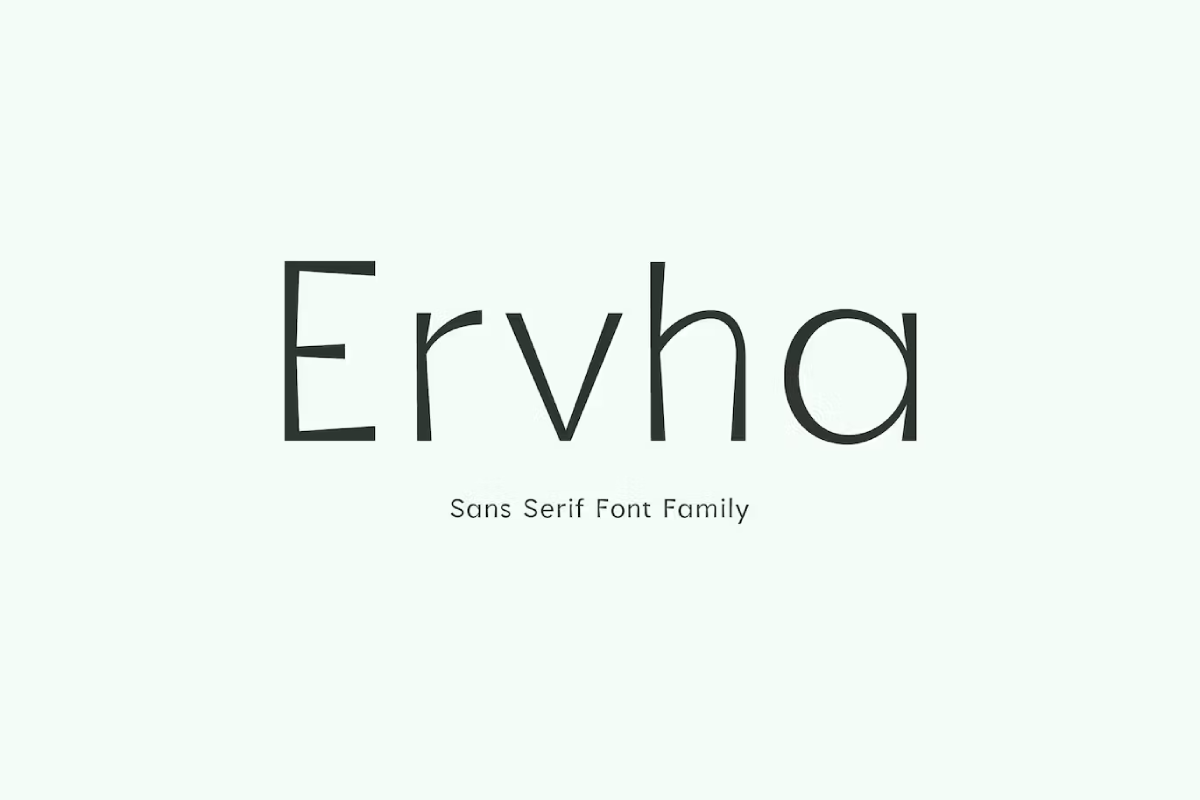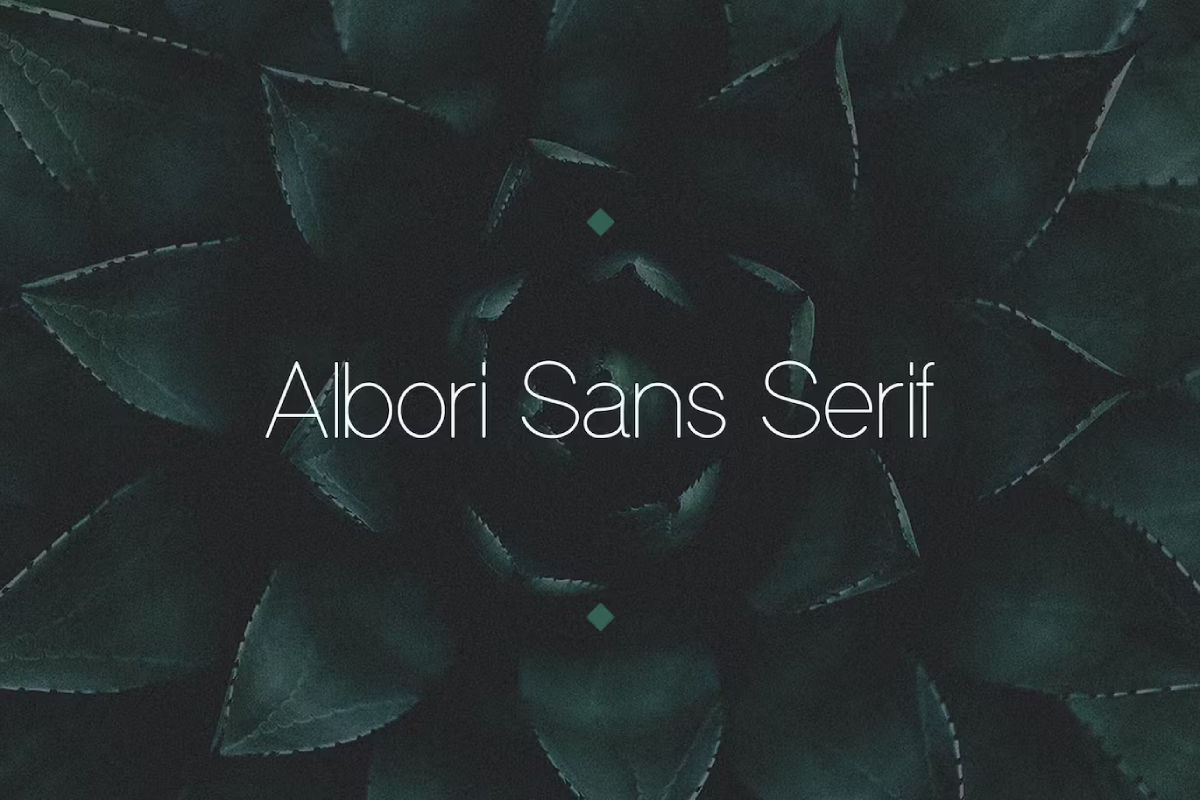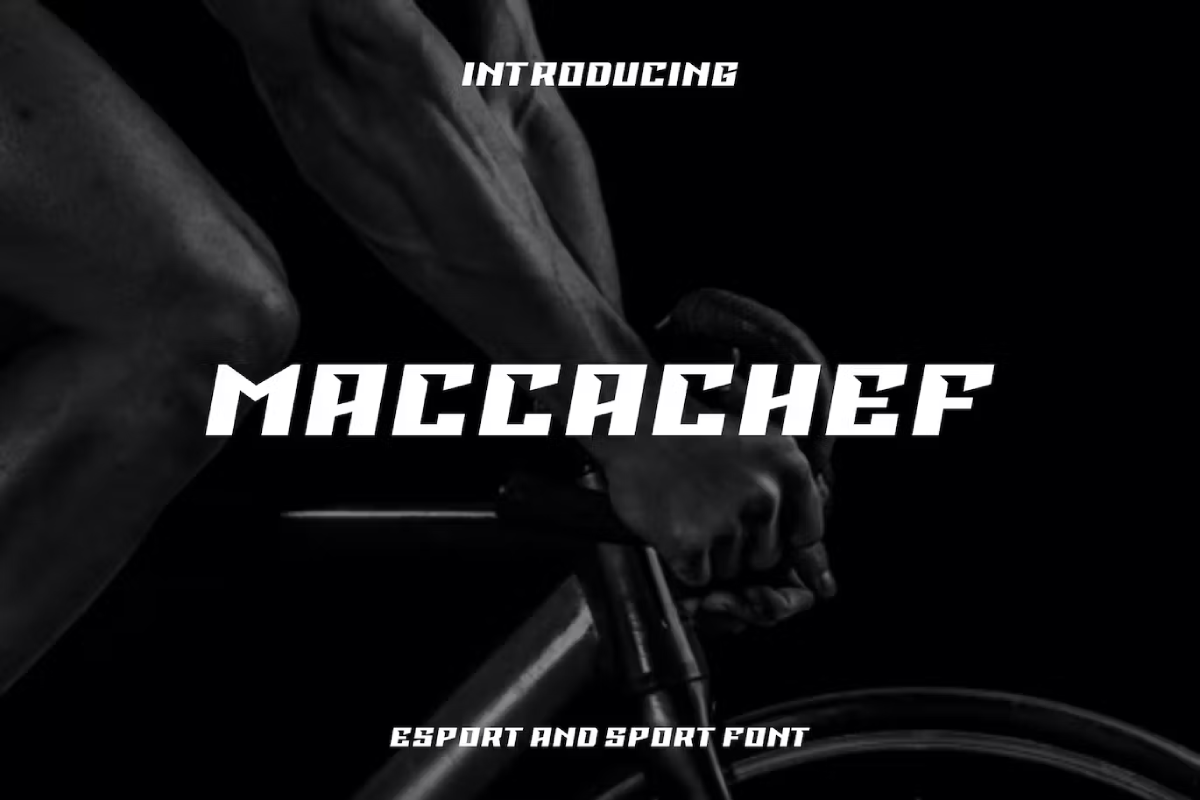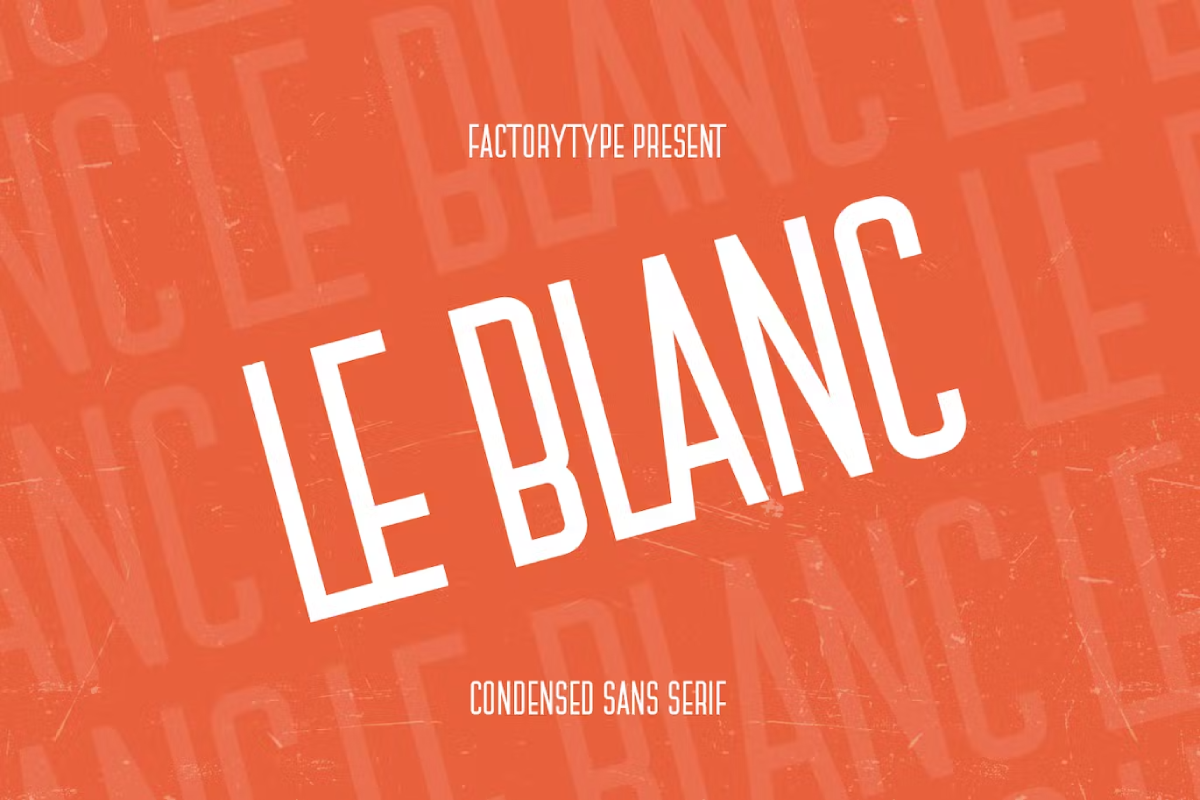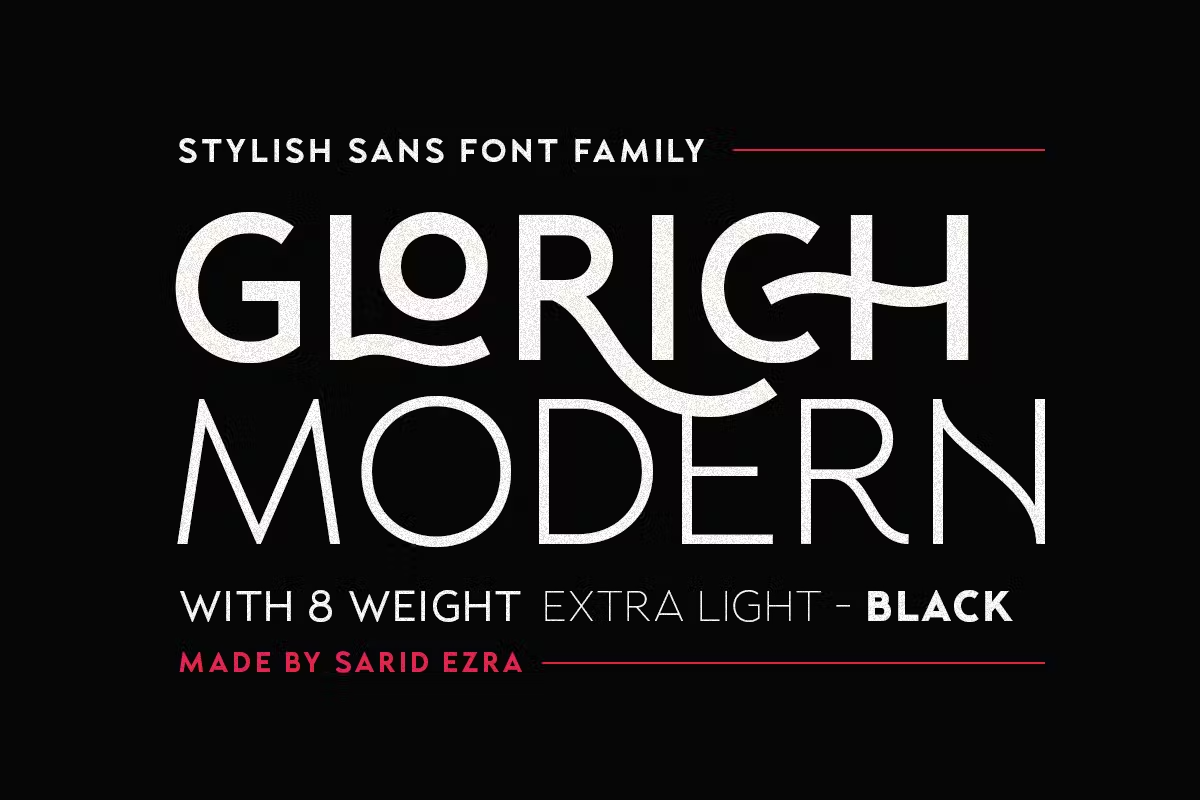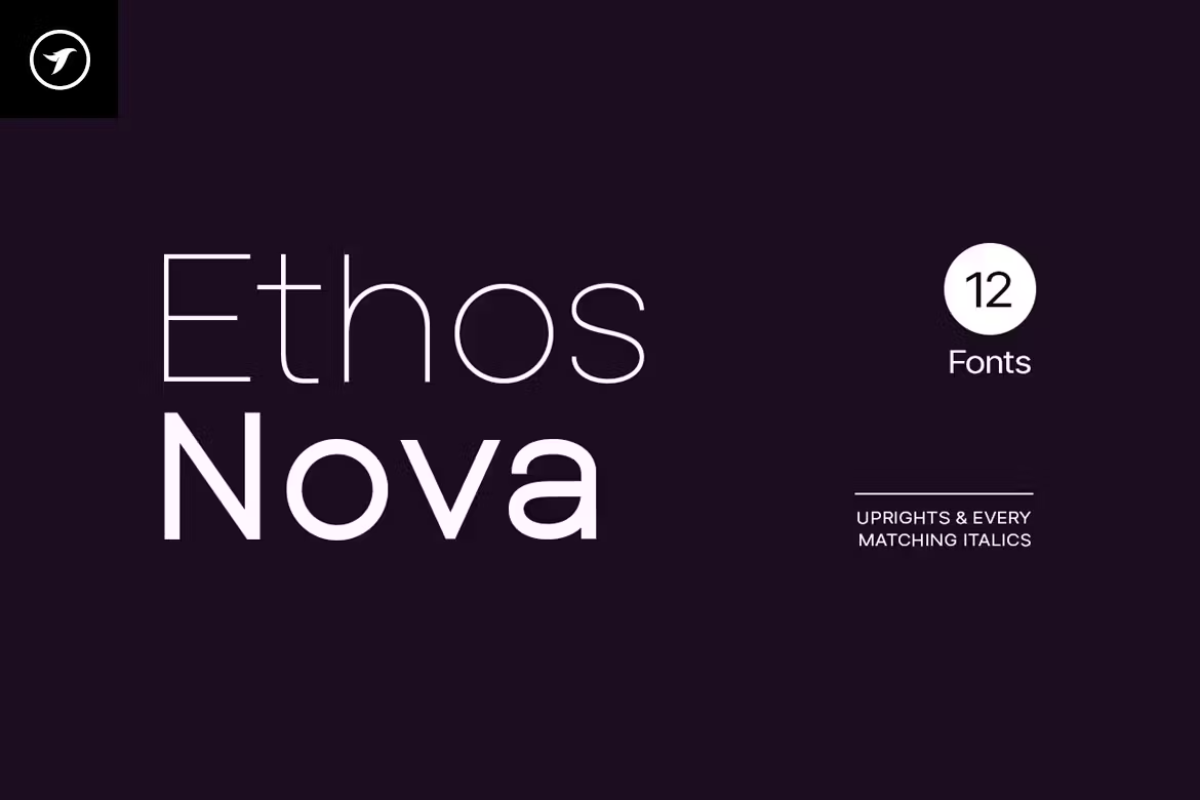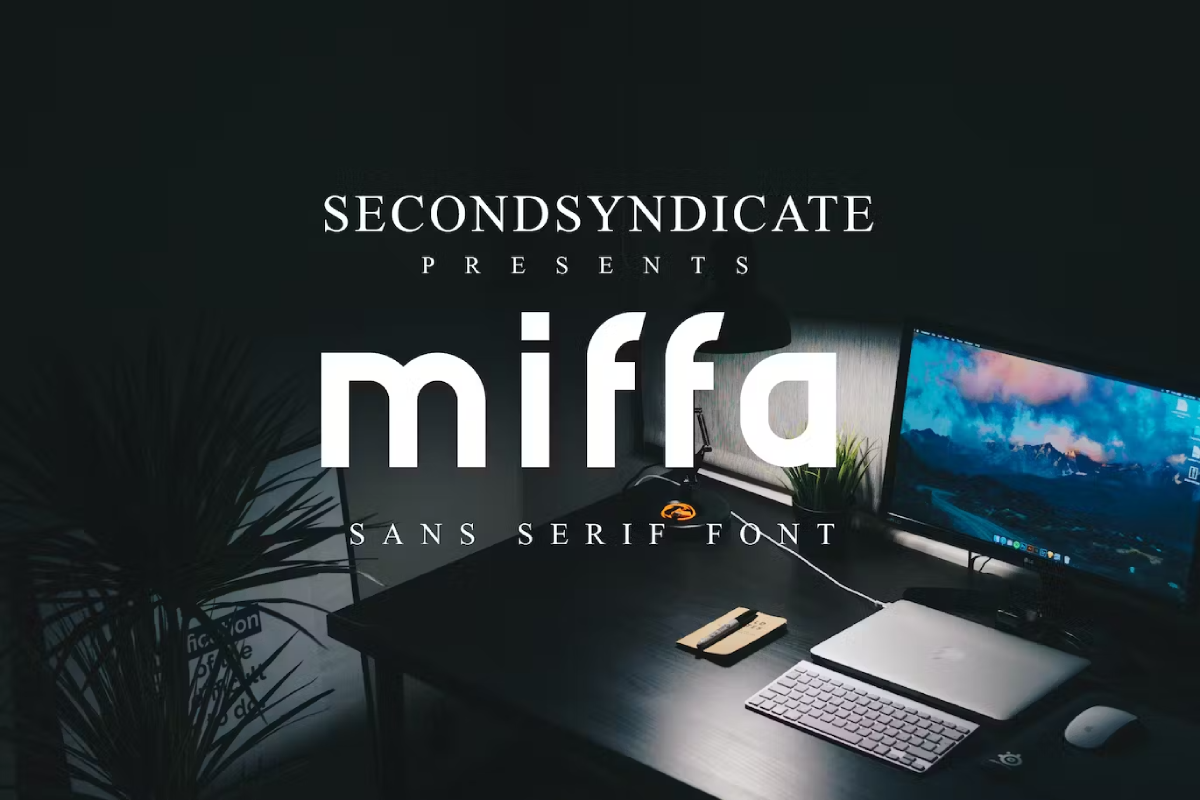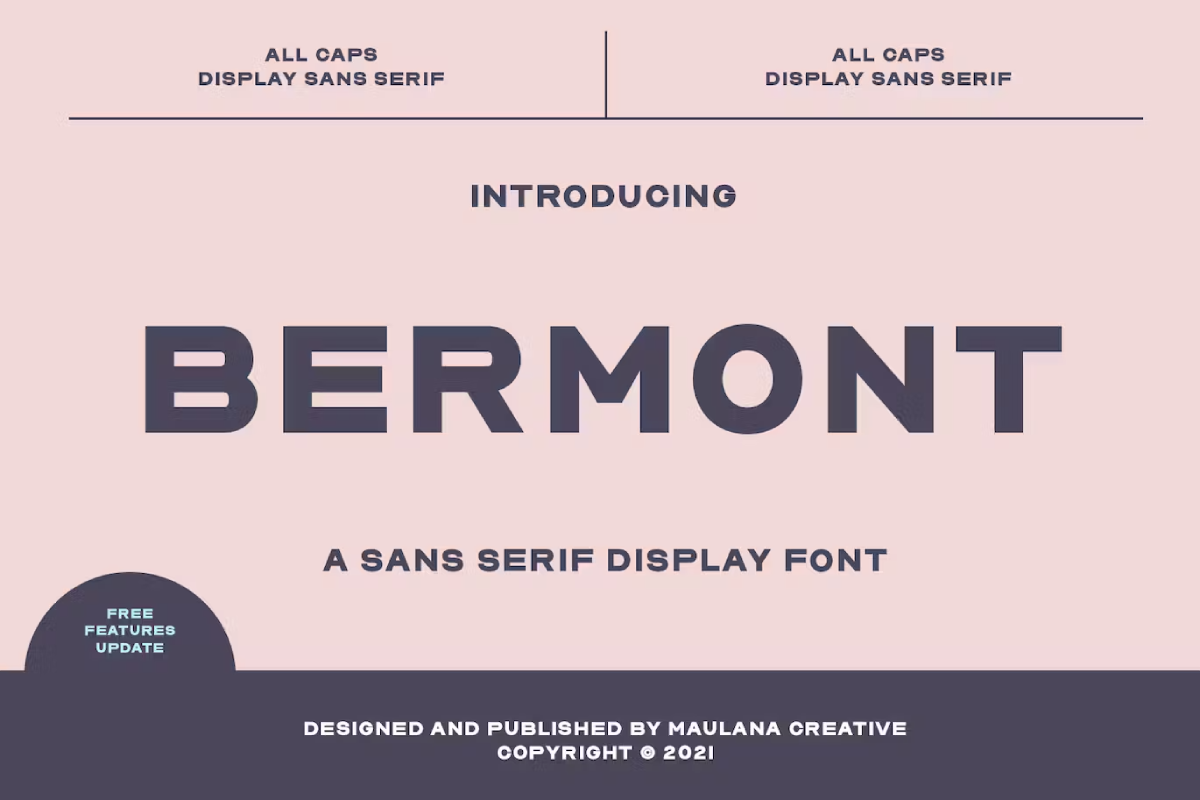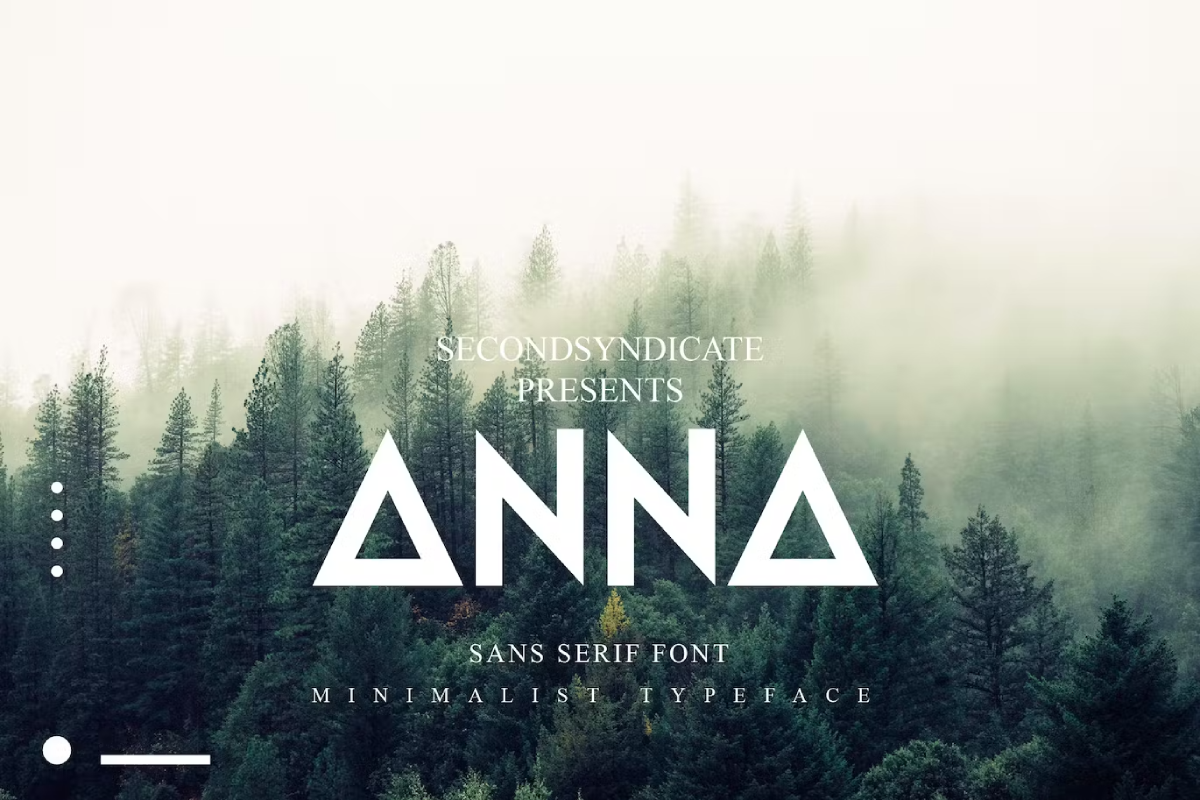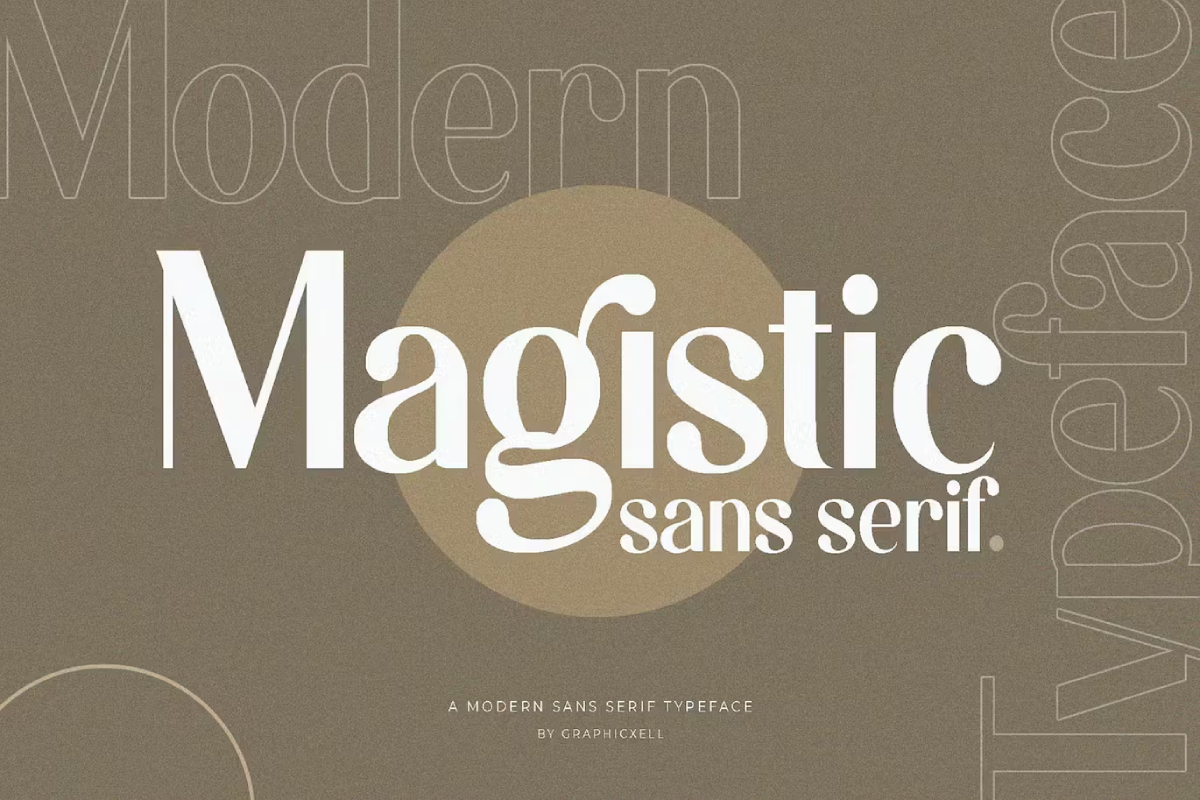
Typography is an art form that speaks without words, and sans serif fonts are the silent heroes of this world. Unadorned yet powerful, these fonts are the go-to choice for designers seeking clarity and modernity. In this carefully curated collection, we’re showcasing over 30 of the finest sans serif fonts that you can download today. From the elegance of geometric designs to the simplicity of minimalistic styles, these fonts are more than just letters; they’re tools to convey your message with precision and style.
Whether you’re designing a sleek website, a professional brochure, or a creative poster, these fonts are ready to make your work shine. Dive in, and let’s explore the beauty of best sans serif fonts together!
Ervha Sans Serif Fonts Family
Ervha offers a modern blend of classic and contemporary styles. Its versatile design is suitable for both text and headlines, making it a go-to choice for various projects.
Albori Sans-Serif Font
With its clean lines and elegant curves, Albori Sans-Serif adds a touch of sophistication to any design. It’s perfect for branding, advertising, and editorial use.
MACCACHEF – San Serif Fonts Pack
Bold and distinctive, MACCACHEF is a contemporary sans serif font that stands out in logos, headlines, and branding materials. Its strong presence adds character to any design.
Le Blanc – Condensed Sans Serif
Le Blanc’s condensed style is space-efficient without sacrificing readability. Its sleek design is perfect for modern websites, apps, and print materials.
Glorich – Stylish 8 Sans Serif Fonts Pack
Glorich offers eight unique and stylish fonts that add flair to any project. From branding to web design, this collection provides creative flexibility.
Ethos Nova – Minimalist Sans Serif Fonts Pack
Minimalist Sans-Serif Typeface: Ethos Nova’s minimalist design exudes modern elegance. Its clean and simple lines make it an excellent choice for branding, web design, and print materials.
Miffa – Sans Serif Fonts Pack
Playful and creative, Miffa offers a fresh twist on traditional sans serif. Its unique design is ideal for fun and artistic projects, from posters to children’s books.
Bermont Sans Serif Display Font
Bermont’s bold and eye-catching display style is perfect for large format designs. Its strong presence makes it a great choice for billboards, posters, and banners.
ANNA – Sans serif font
Elegant and refined, ANNA is a versatile sans serif font that adds a touch of class to branding, advertising, and editorial projects. Its timeless design is always in style.
Magistic Sans Serif Fonts
Magistic combines simplicity and creativity in a versatile sans serif font. Its unique design adds a touch of magic to logos, headlines, and branding materials
Polers – Sans Serif Font
Sleek and modern, Polers is a sans serif font designed for the digital age. Its clean lines are perfect for websites, apps, and other tech-related designs.
Modern Sans Serif Fonts Pack
Fresh and contemporary, this font lives up to its name by offering a modern take on sans serif. Its versatile design is suitable for a wide range of creative projects.
Putih Sans Serif Font
Light and airy, Putih’s minimalist design is perfect for clean and simple aesthetics. Its graceful lines add elegance to websites, print materials, and branding.
Filena – Sans Serif Font
Filena’s strong lines and clear design make it a versatile choice for everything from headlines to body text. Its balanced design enhances readability.
Qiasan – Sans Serif Font
Qiasan’s unique character set adds a touch of individuality to any design. Its distinctive style is perfect for branding, advertising, and artistic projects.
Rearden – Sans Serif Font
Robust and impactful, Rearden’s design is perfect for strong headlines, logos, and branding materials. Its bold presence commands attention.
Urqiora sans serif font
Sleek and sophisticated, Urqiora’s modern design is perfect for contemporary projects. Its clean lines and elegant curves add a touch of luxury.
Elegant Sans Serif Font
True to its name, this font exudes elegance and sophistication. Its graceful design is perfect for upscale branding, advertising, and editorial projects.
Facile Sans Serif Font – Free Download
Facile offers simplicity and versatility in a free package. Its clean design is suitable for various design needs, from websites to print materials.
Airlove Sans Serif Font
Whimsical and romantic, Airlove adds a touch of charm to any project. Its playful design is perfect for invitations, greeting cards, and branding materials.
Tactico Sans Serif Font
Strategic and versatile, Tactico’s design is a great choice for business and marketing materials. Its clean lines convey professionalism and efficiency.
Progress Sans Serif Fonts Pack – Free Download
Dynamic and forward-moving, Progress embodies momentum in its design. Its sleek lines are perfect for tech companies, startups, and innovative brands.